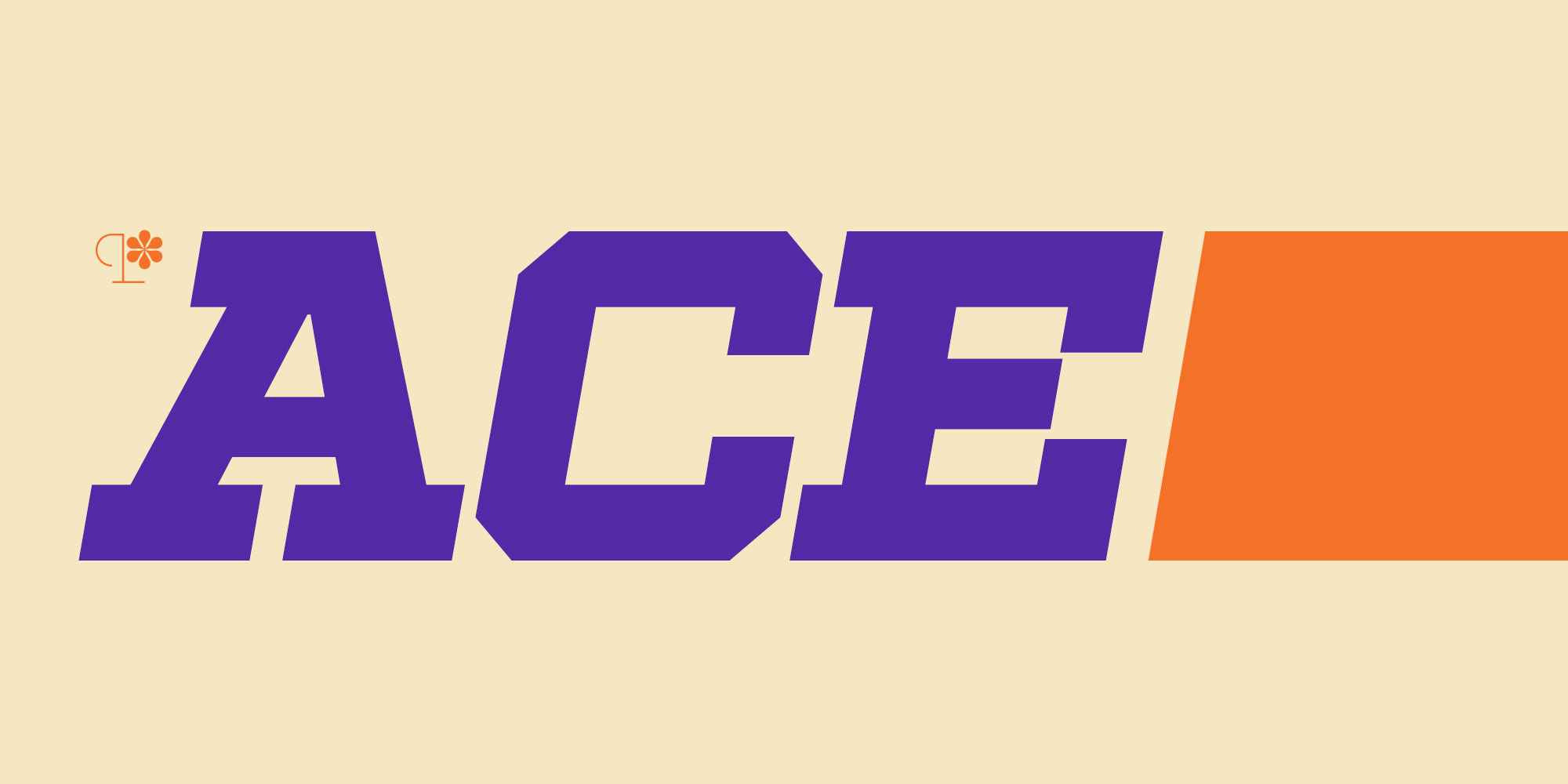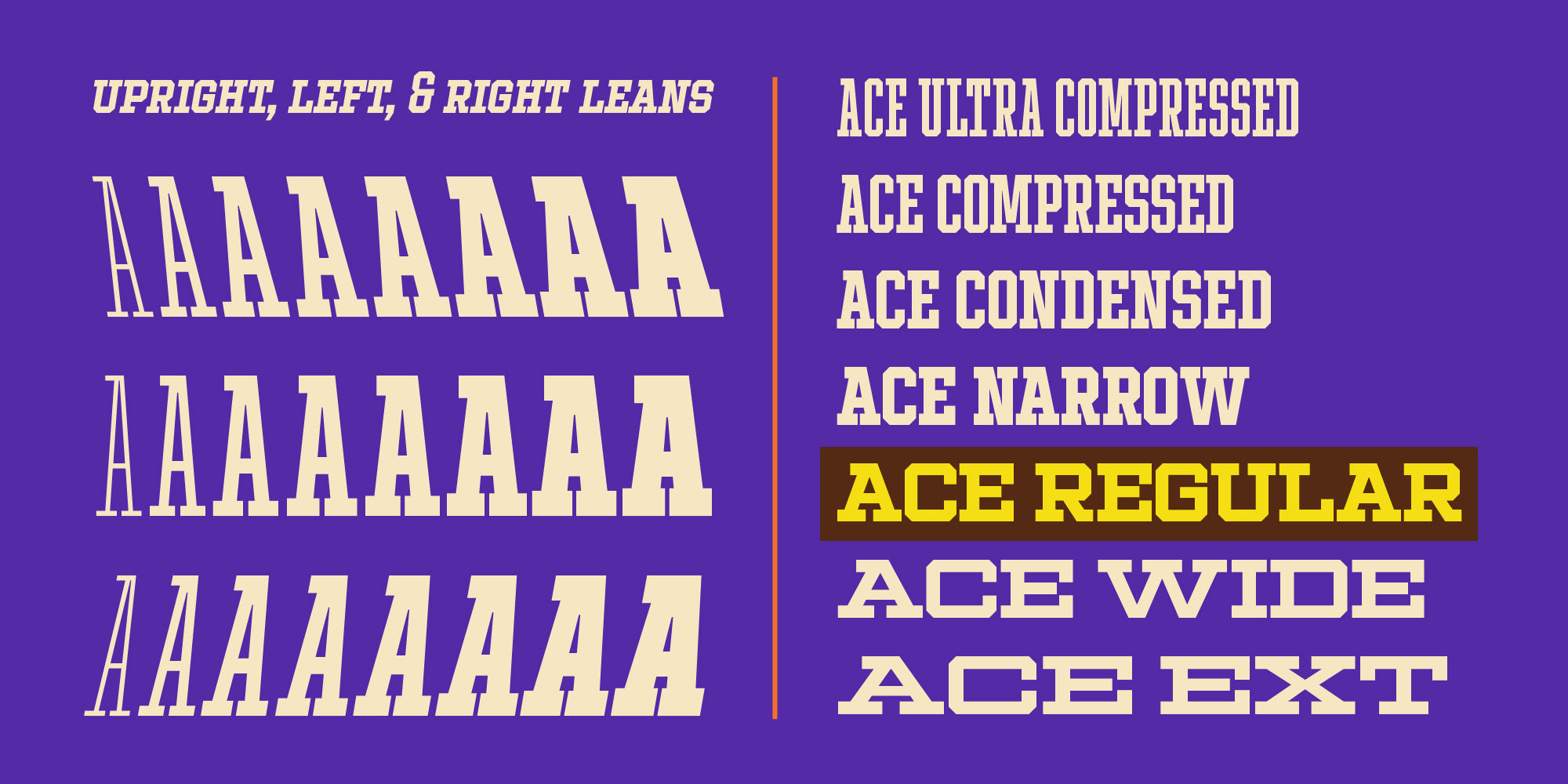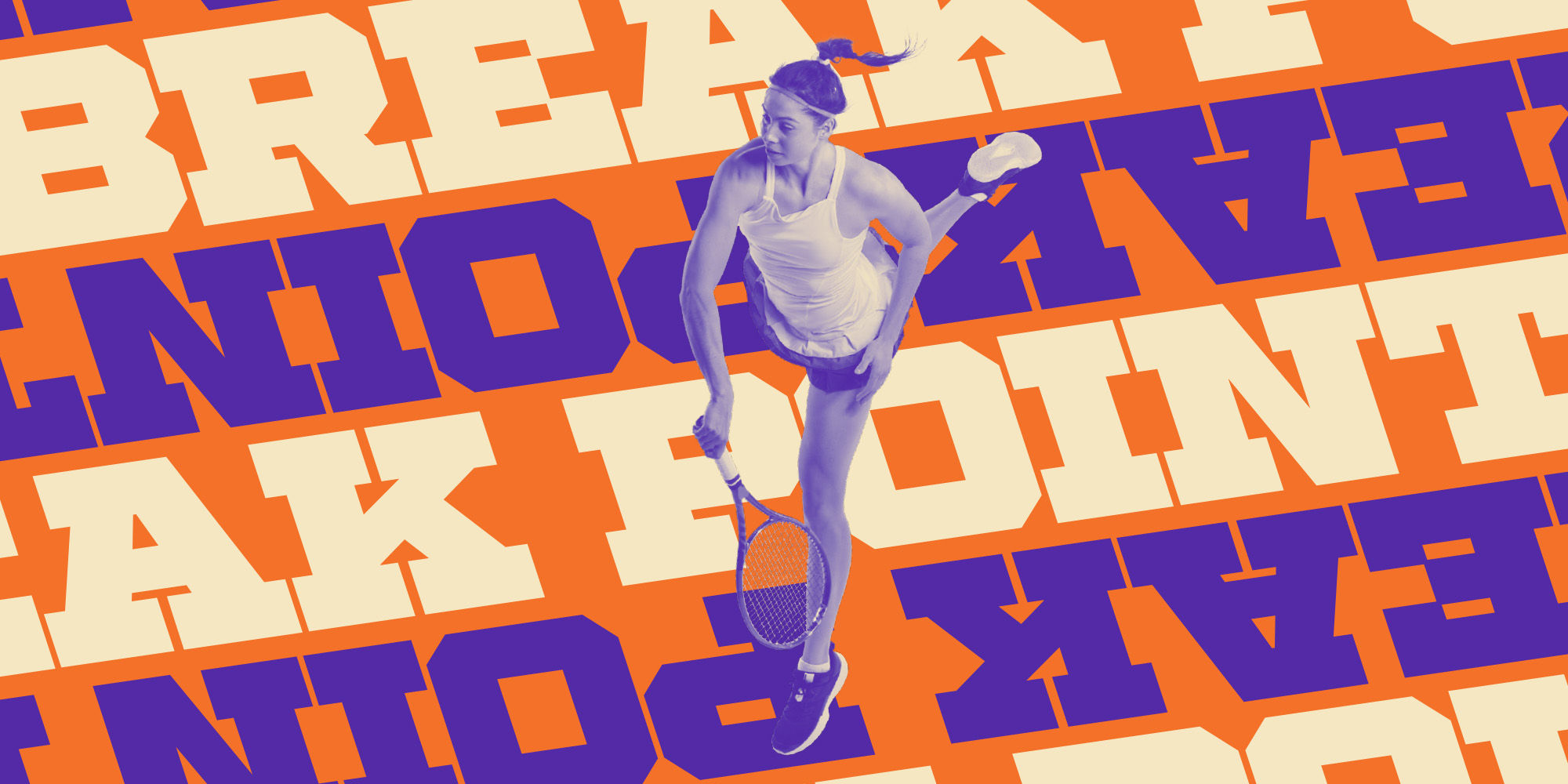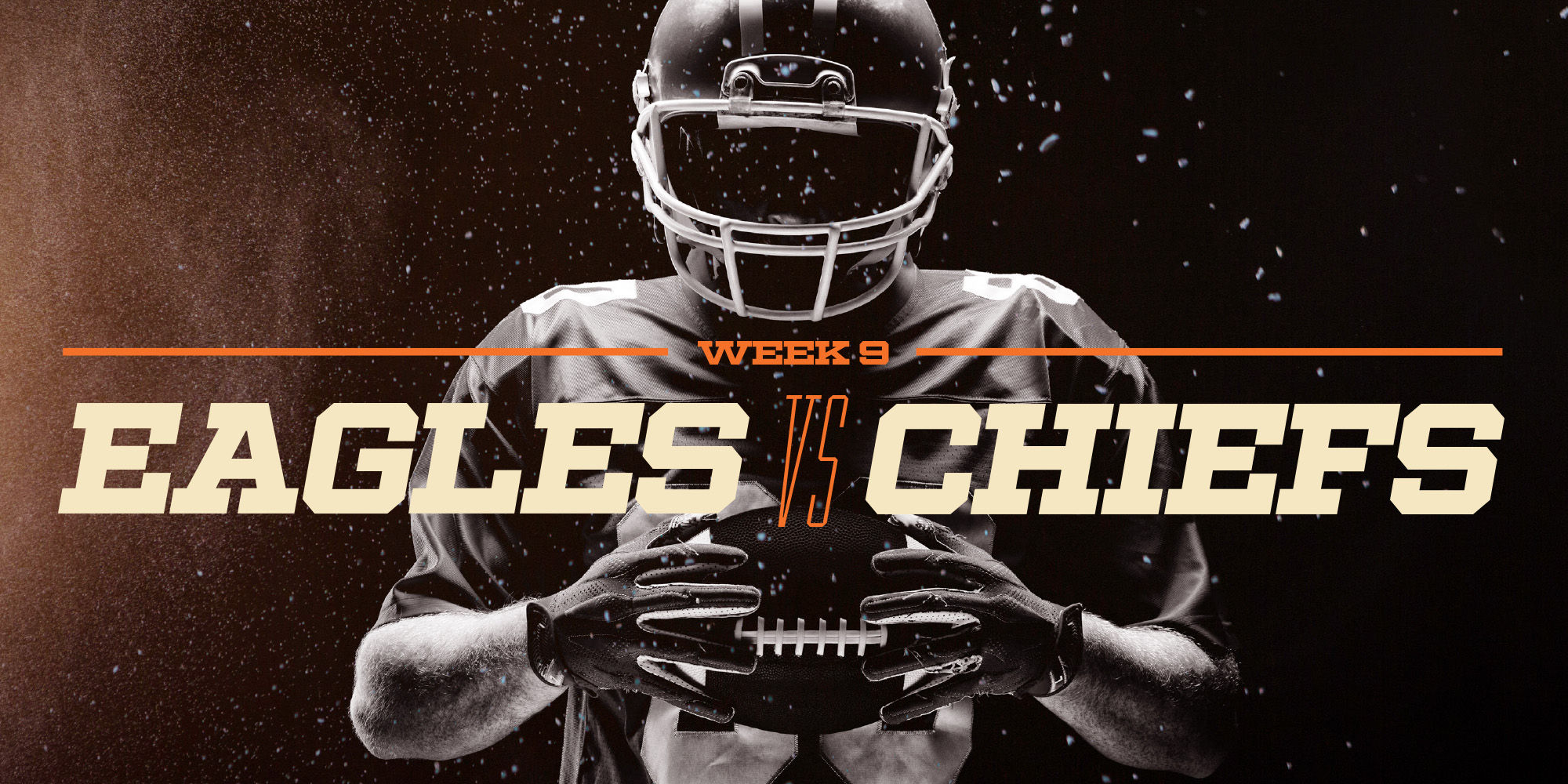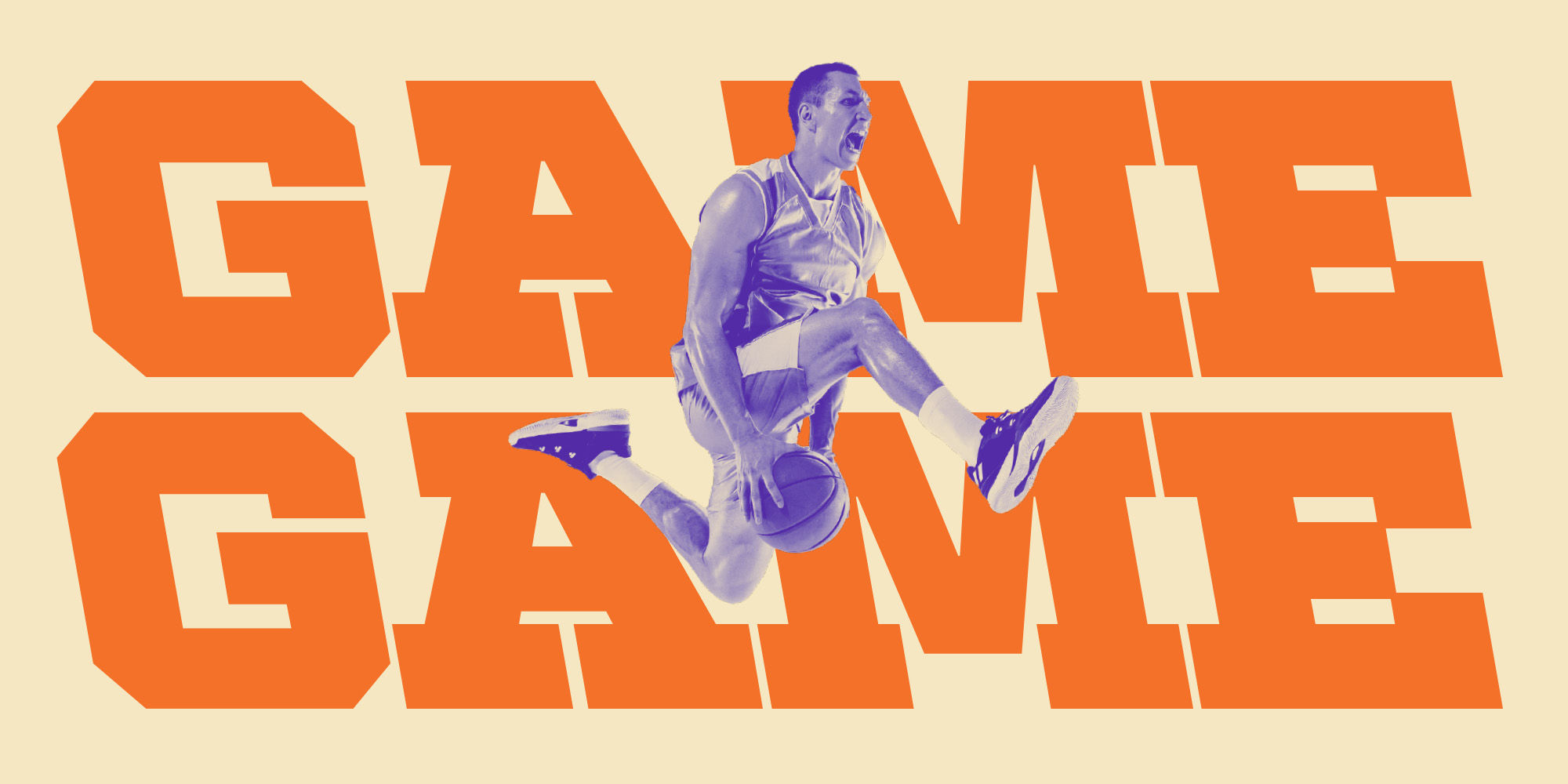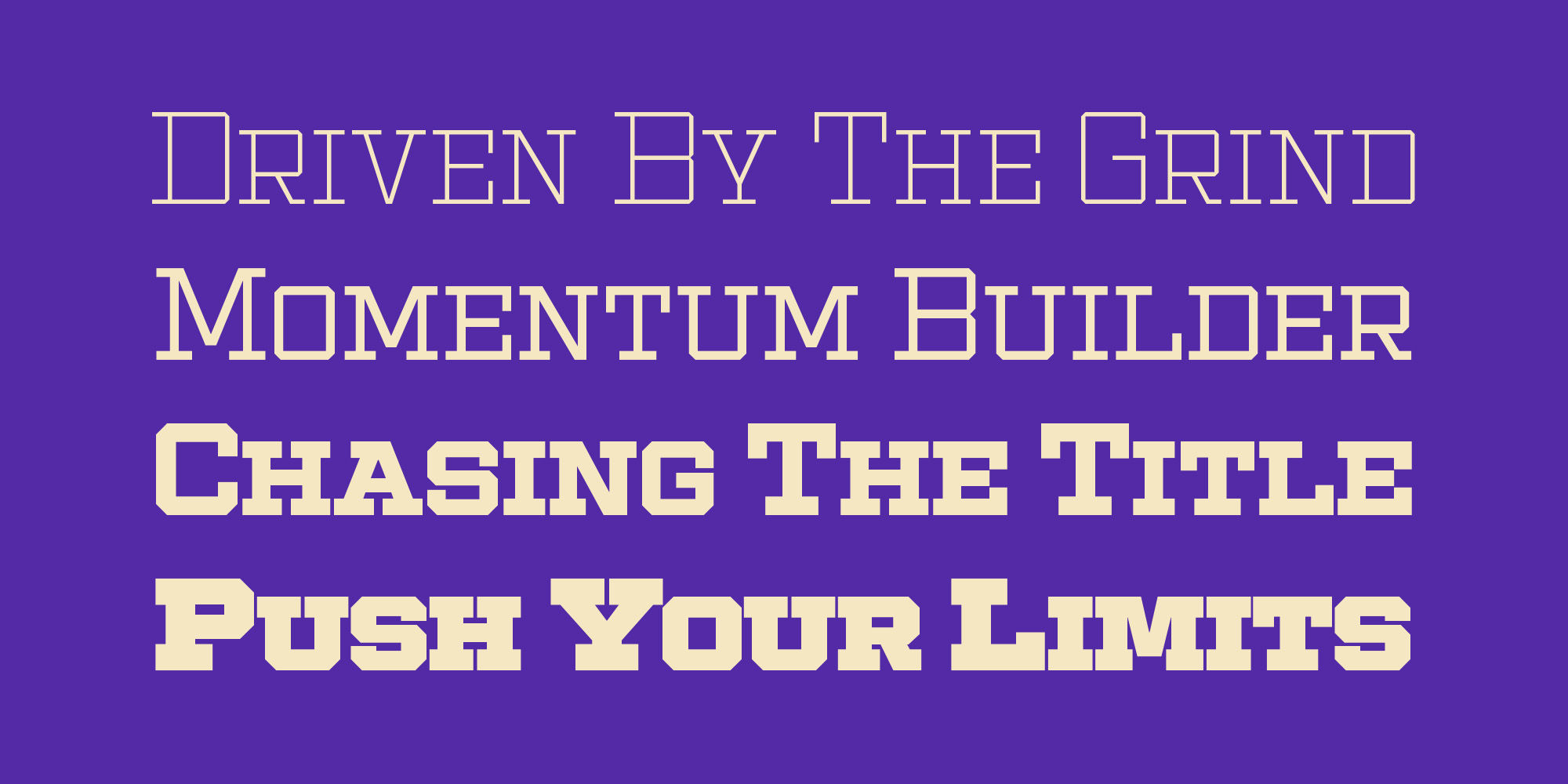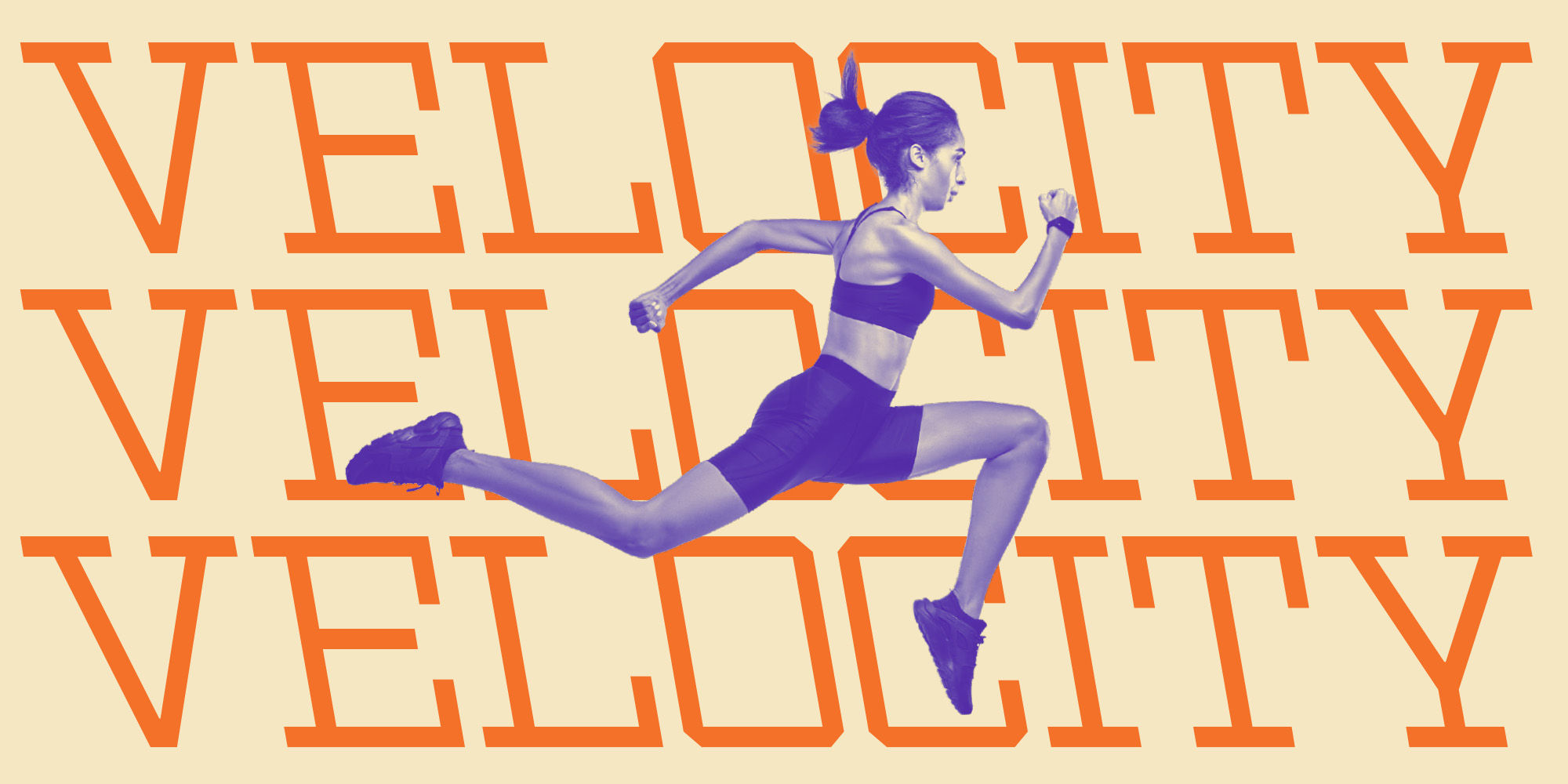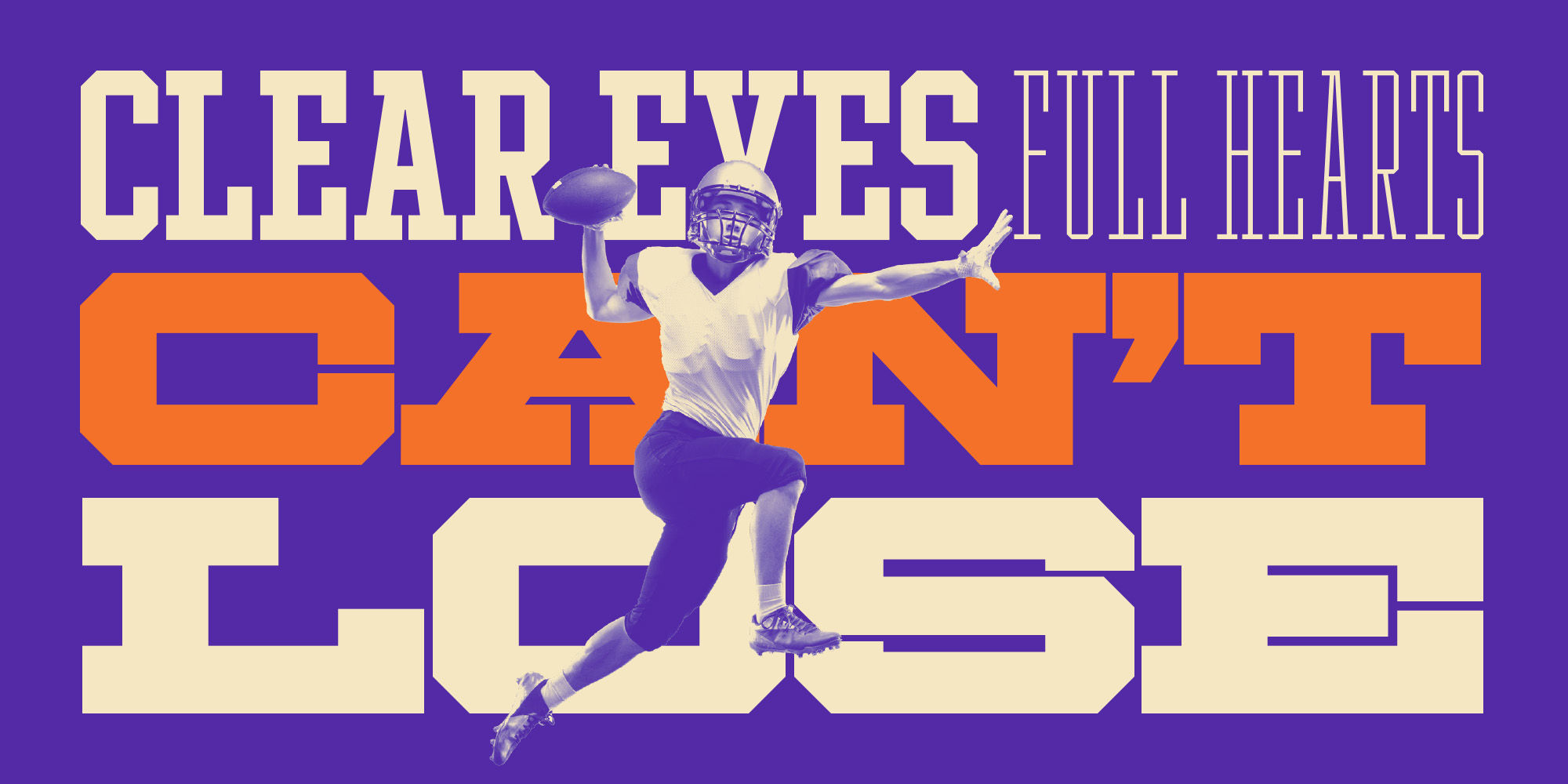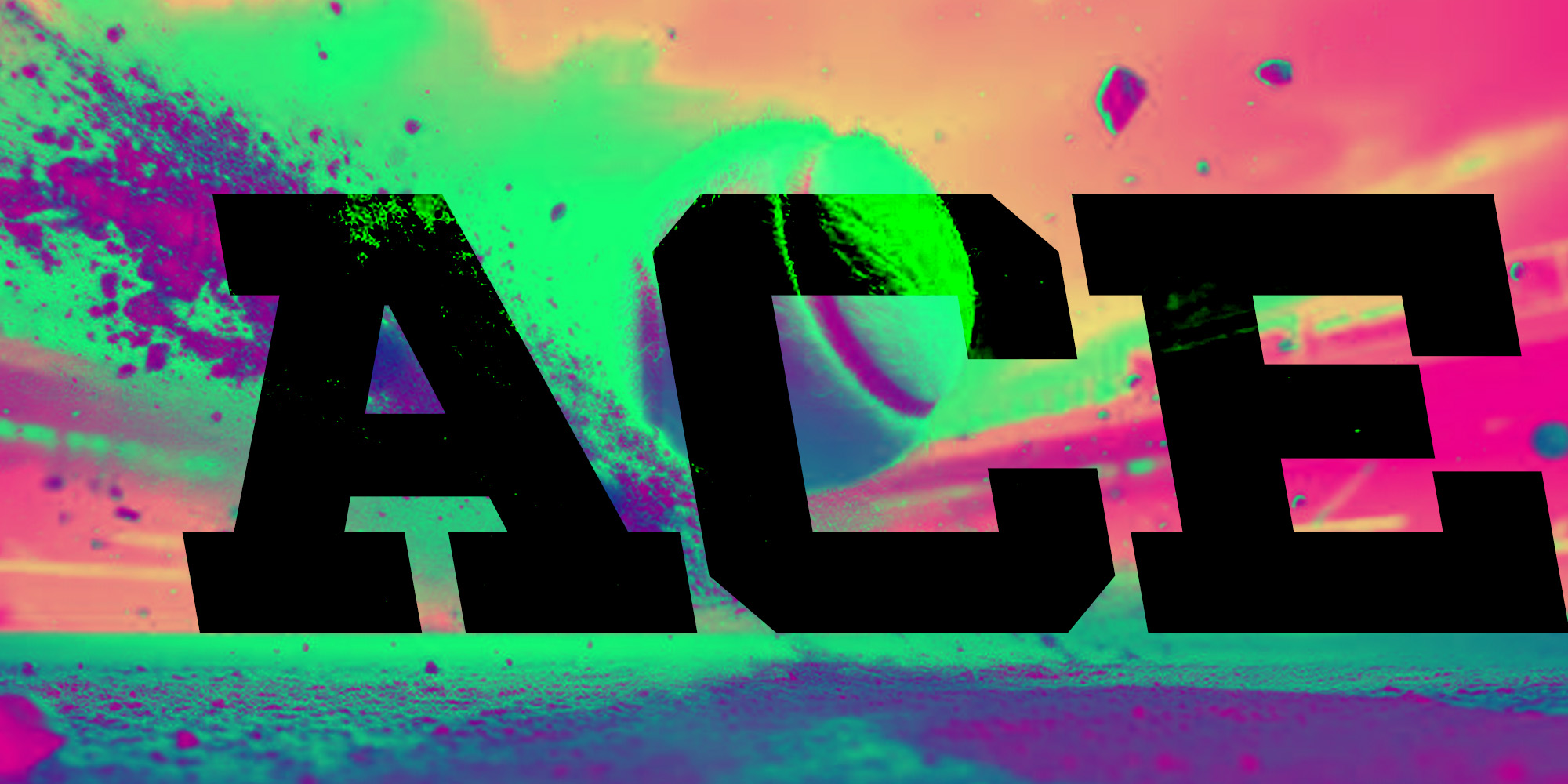
Ace
Energetic
Fractionsfrac
A V W
Stylistic Set 1ss01
Stylistic Set 2ss02
Collegiate aesthetics, professional polish, and no need for NIL—Ace delivers a versatile superfamily in a familiar package. The serifed version of Ace includes seven widths, eight weights, and both upright and left- and right-leaning variants, ensuring a perfect fit and style for any team. This typeface doesn’t cut corners; instead of using caps in the lowercase set, it features thoughtfully crafted, proportionally accurate small caps for added versatility. Ace supports most Latin-based languages, as well as Greek and Vietnamese, and comes equipped with practical OpenType features, including alternative letter shapes, fractions, and more.